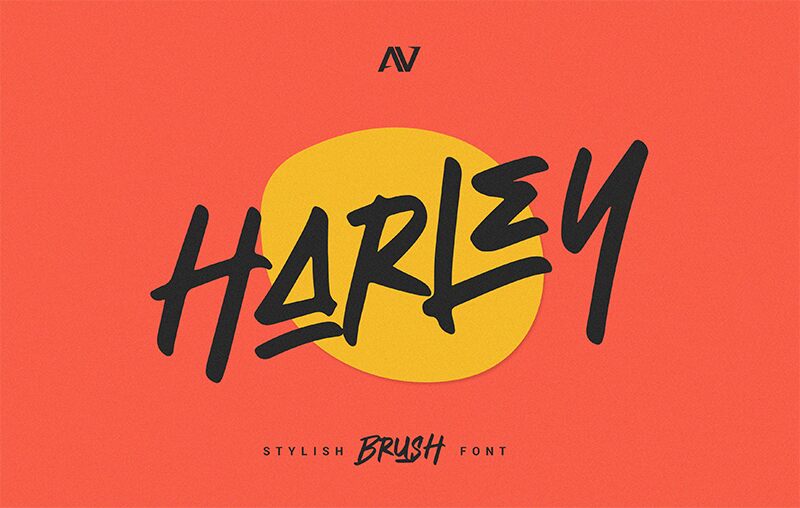
Harley Regular
Harley font is a free brush font with beautifully expressive strokes designed by Gede Sugiantara. The casual handwritten style comes hand-in-hand with an edgy aesthetic and contemporary feel making the typeface as fresh as it gets! Brilliantly irregular and yet very legible, Harley is meant to be enjoyed in its full uppercase and lowercase set.
Designers have a lot of creative freedom when working with applications that include posters, stickers, apparel design, packages, branding projects (logos included), book or album covers, social media publishing, typographic digital art… Enjoy free!